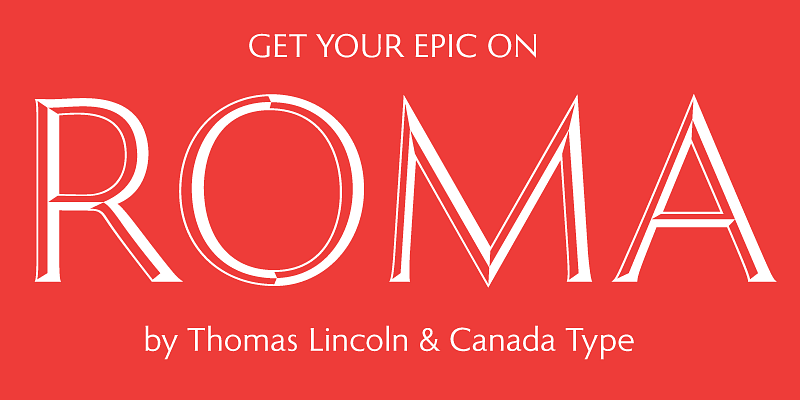
Roma
Roma is a mature, contemporary sans serif expression of the Trajan Column majuscules, the subject of a lifelong fascination for Tom Lincoln. Included are minuscule, small caps and quite a few options for chromatic treatments.